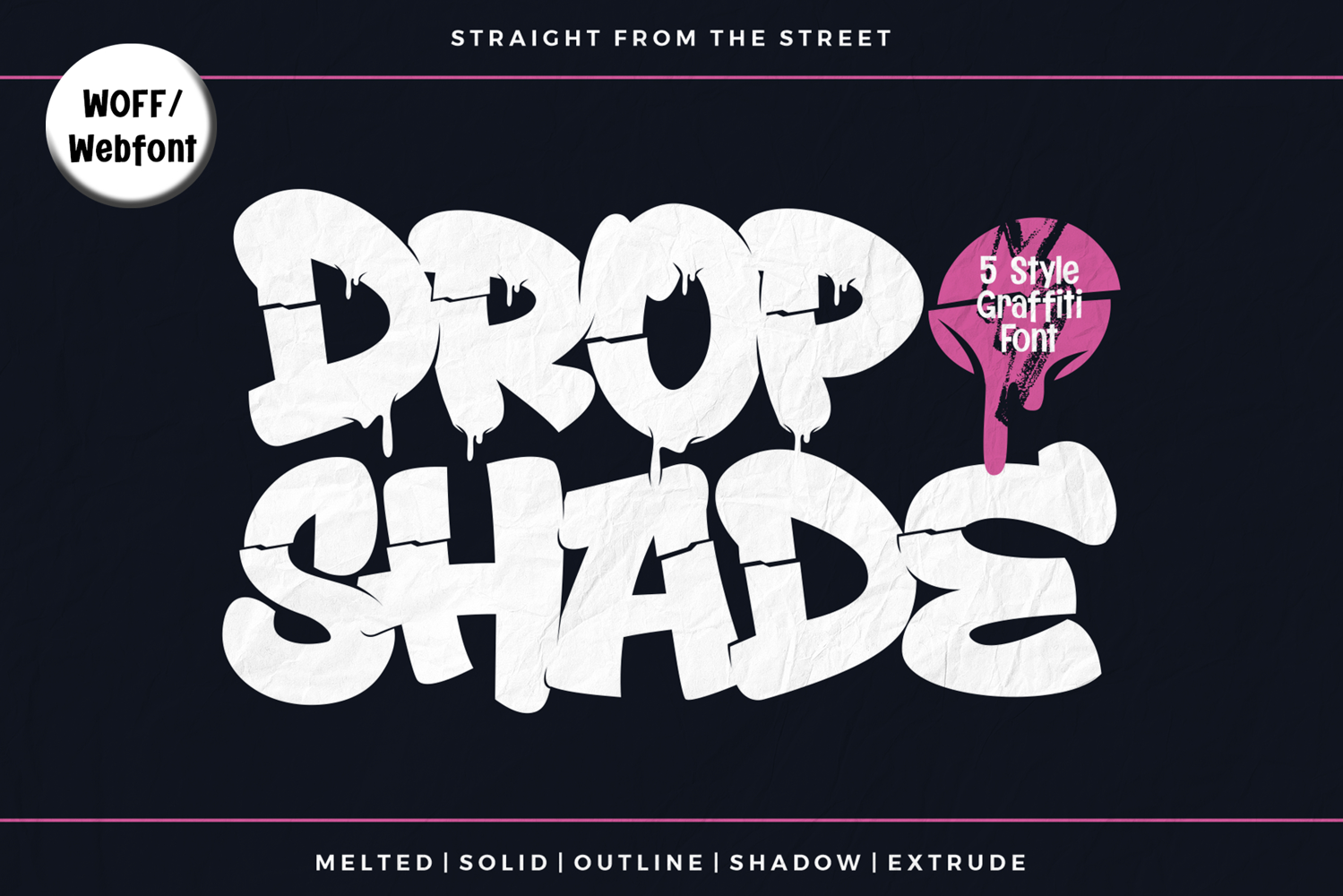
Drop Shade | Melted 3D Graffiti Webfont WOFF
Drop Shade is a melted 3D graffiti web font designed for digital creatives who want to bring an urban edge to their websites. Its dripping details and bold layered depth create a modern street vibe that is perfect for online stores, blogs, music promotions, esports teams, and digital branding. Optimized for screen use, Drop Shade renders sharp and clear on all devices while adding a unique graffiti-inspired personality. Make your website bold, stylish, and unforgettable with Drop Shade.